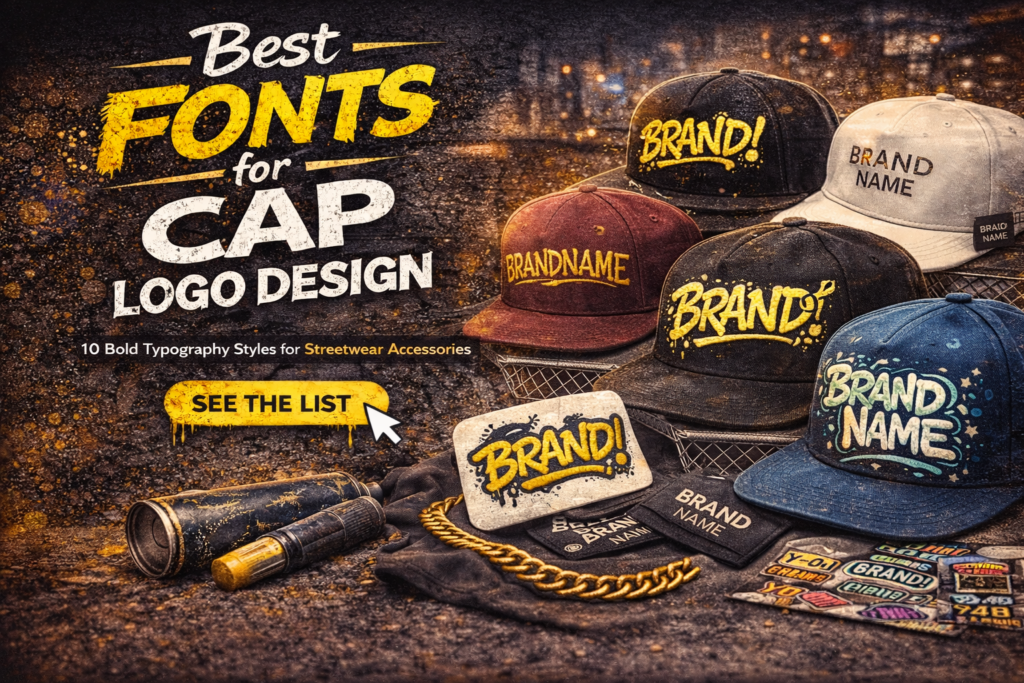
Choosing the best fonts for cap logo design is essential for building a strong merchandise identity. In streetwear and apparel branding, caps and hats are often one of the most visible accessories, making logo typography a crucial part of the brand experience.
The right font can instantly make your cap look premium, trendy, and highly recognizable.
In this guide, we’ll explore the best typography styles for cap logo design and how to choose fonts that work perfectly for headwear branding.
Why Typography Matters for Cap Branding
Caps are highly visual products.
Typography affects:
• logo visibility
• embroidery appeal
• brand recognition
• premium perception
A strong font can significantly improve how exclusive and stylish your cap design looks.
10 Best Fonts for Cap Logo Design
1. Bold Sans Serif Fonts
Perfect for:
• minimalist caps
• premium streetwear
• logo embroidery
These fonts are clean and easy to read.
2. Graffiti Fonts
Excellent for:
• snapback brands
• youth streetwear
• urban caps
Creates a strong street identity.
3. Gothic Fonts
Great for luxury and dark streetwear caps.
4. Brush Fonts
Adds movement and personality.
Perfect for lifestyle headwear brands.
5. Minimal Urban Fonts
Best for premium branding.
6. Drip Fonts
Edgy and expressive.
Excellent for youth-focused brands.
7. Distressed Fonts
Creates a rugged streetwear look.
8. Display Fonts
Helps the cap logo stand out visually.
9. Vintage Fonts
Perfect for heritage and retro hat brands.
10. Custom Lettering Fonts
Best choice for unique logo embroidery.
Highly recommended.
How to Choose the Best Fonts for Cap Logo Design
Choose based on:
Embroidery Compatibility
The font must work well for stitching and embroidery.
Avoid overly thin fonts.
Readability
Logo must remain clear on:
• front cap panel
• side logo
• tags
Brand Style
Luxury → minimal / gothic
Urban → graffiti / brush
Casual → sans serif
Best Fonts for Hat Branding
Final Thoughts
Choosing the best fonts for cap logo design is essential for building a recognizable accessory brand.
Typography on caps directly affects premium perception and product appeal.
Using professional fonts can help your merchandise stand out.